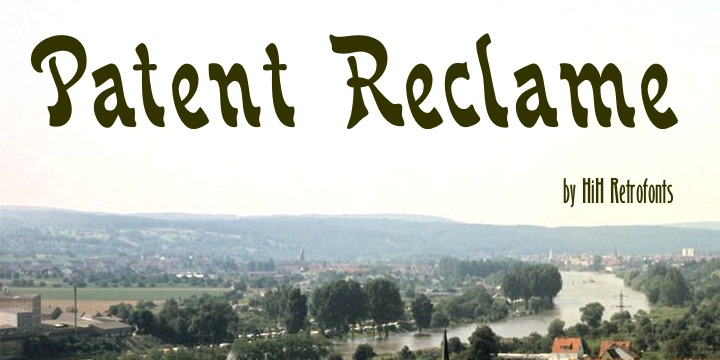
Patent Reclame manages to be light-hearted, while clearly showing its blackletter roots both in the shape of the individual letters and the rhythm of text on a page. The designer is unknown. Schriftgeisserei Flinch of Frankfurt a.M. cast the face around 1895. Nicolete Gray shows a quite similar face called “Graphic,” from Stephenson Blake in 1896. Personally, I don't think that Patent Reclame looks like an English design, but I do not have any proof one way or the other. More…
The numbers are proportional, intended for posters, not spreadsheets. Two ornaments are included, an art nouveau rose at #172 and a lilypad with long tendril at #177. Great for invitations, posters and flyers announcing fun events. Do not use for obituaries. Quite readable in smaller sizes for short blocks of text. I really like the buoyant quality -- a nice combination of discipline and enthusiasm.